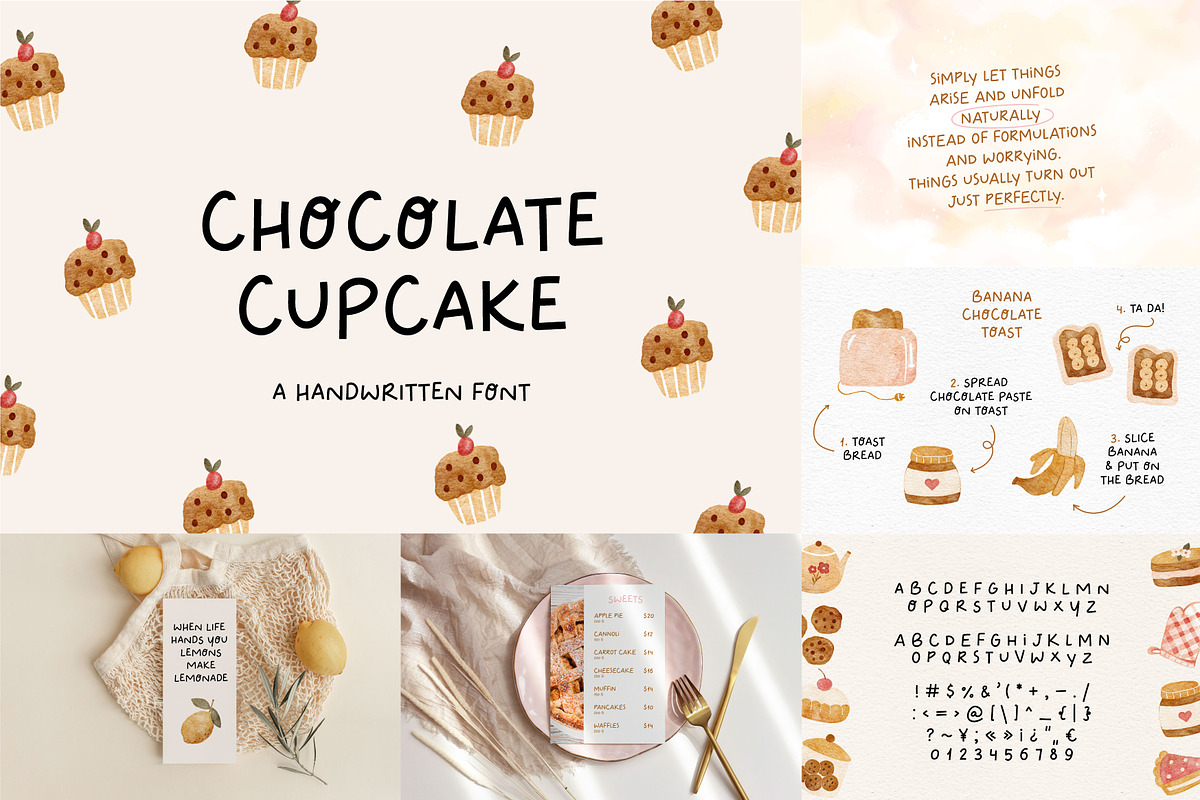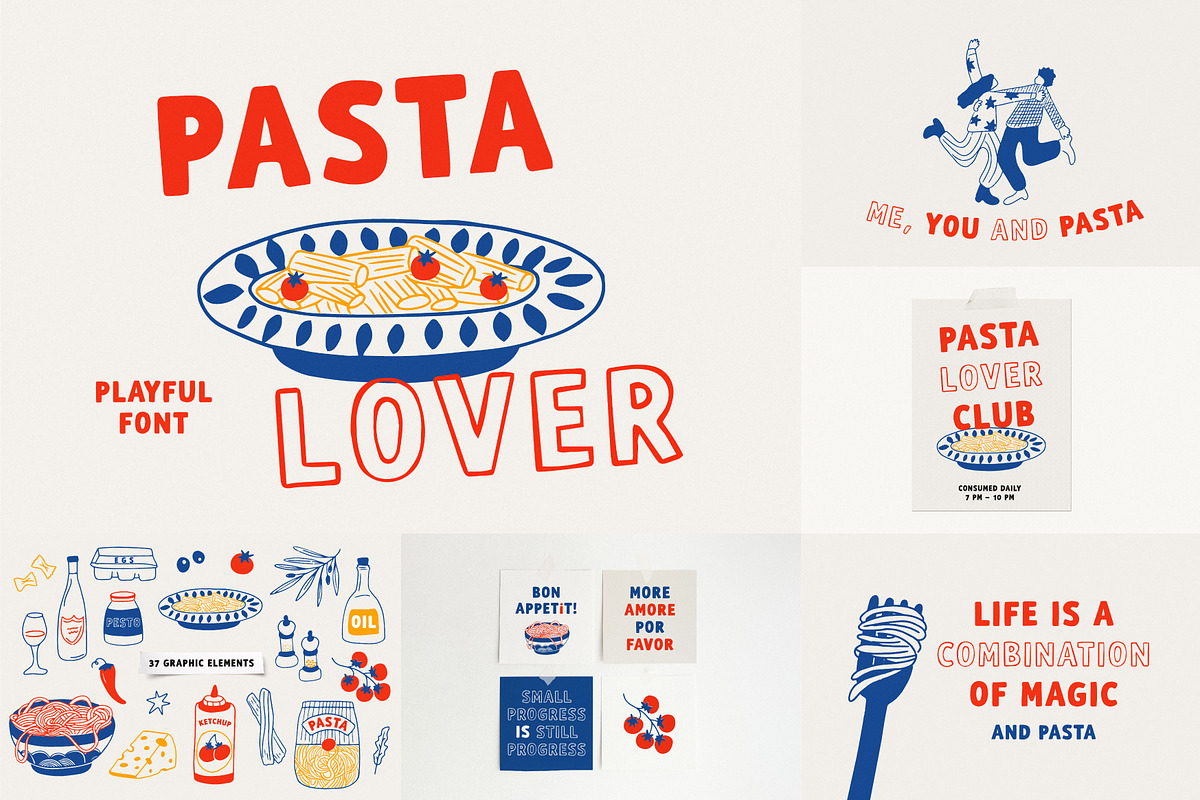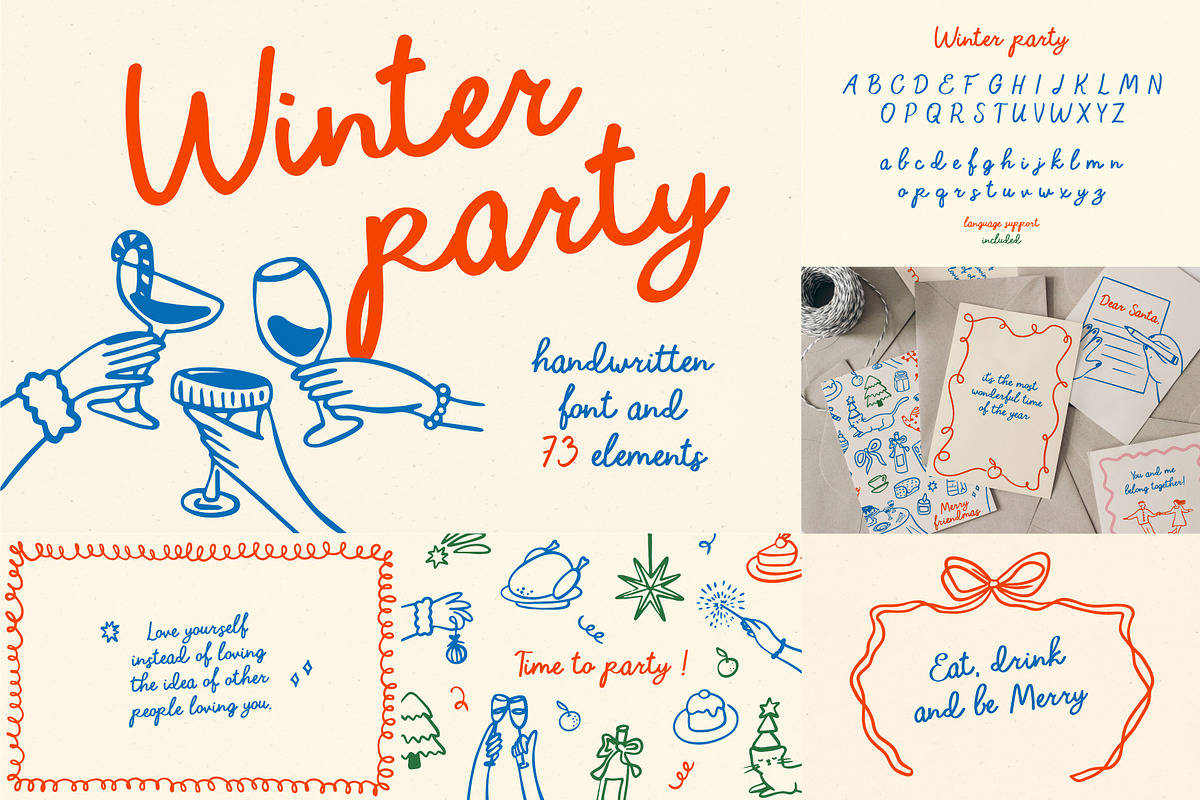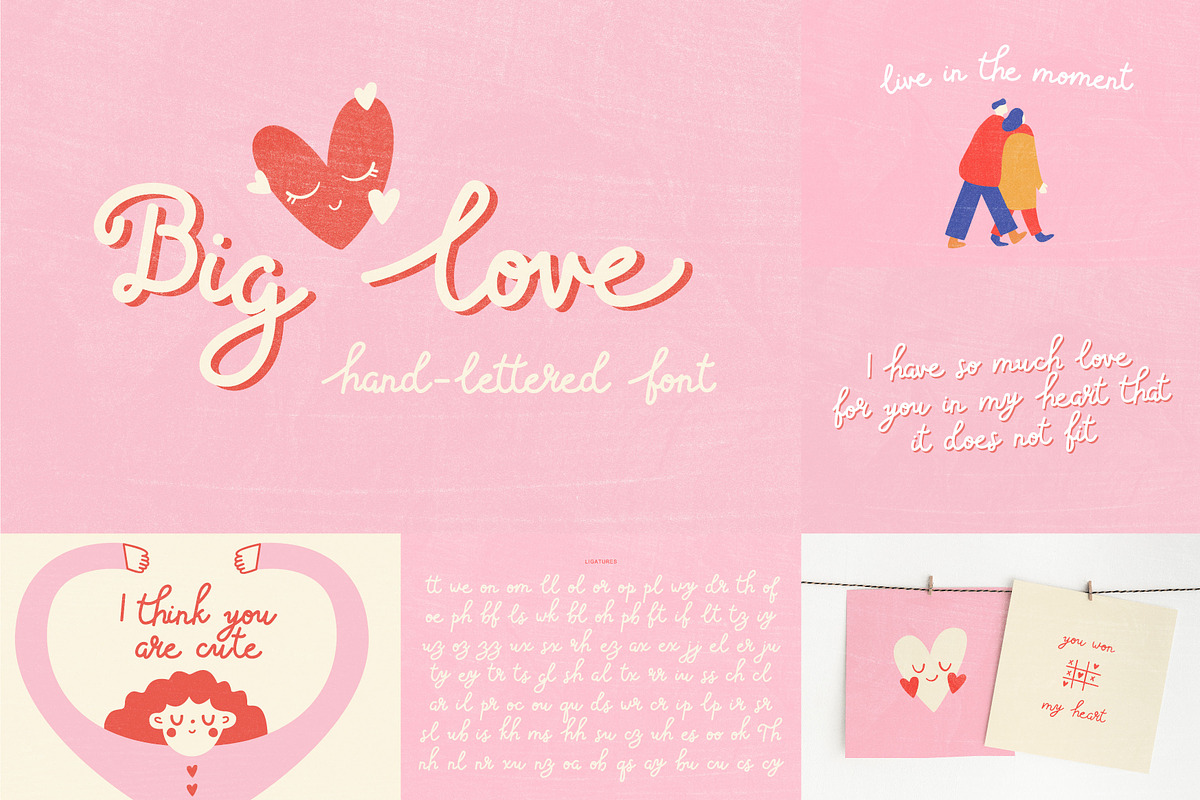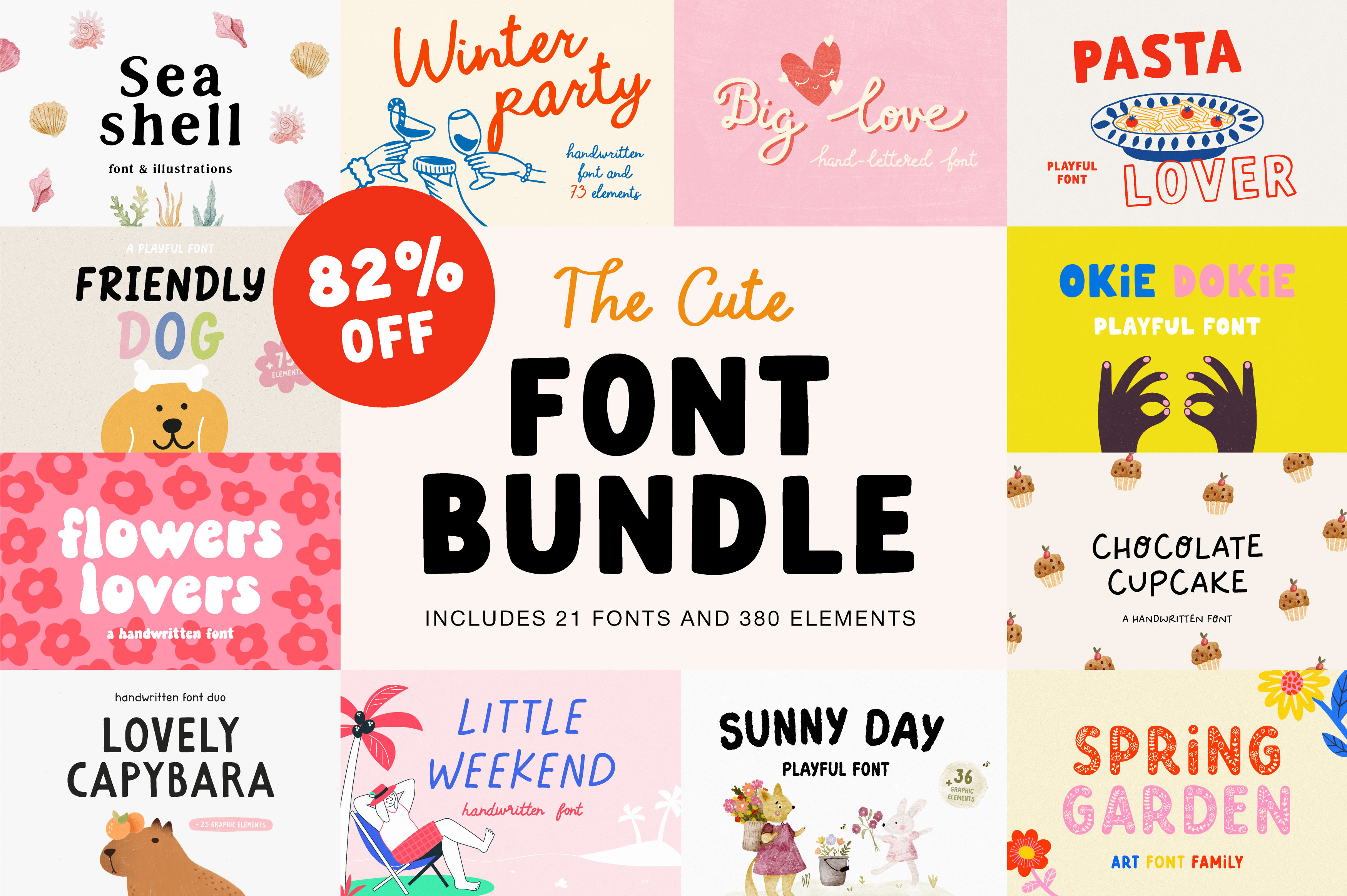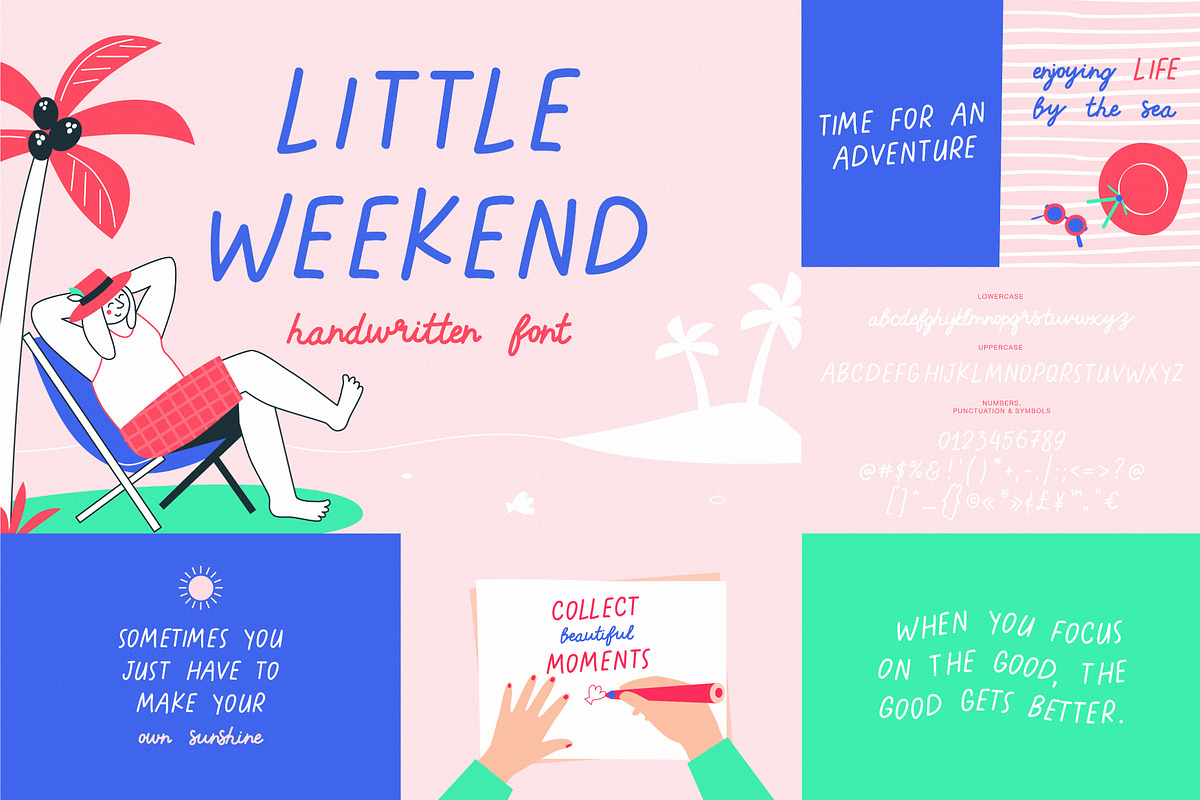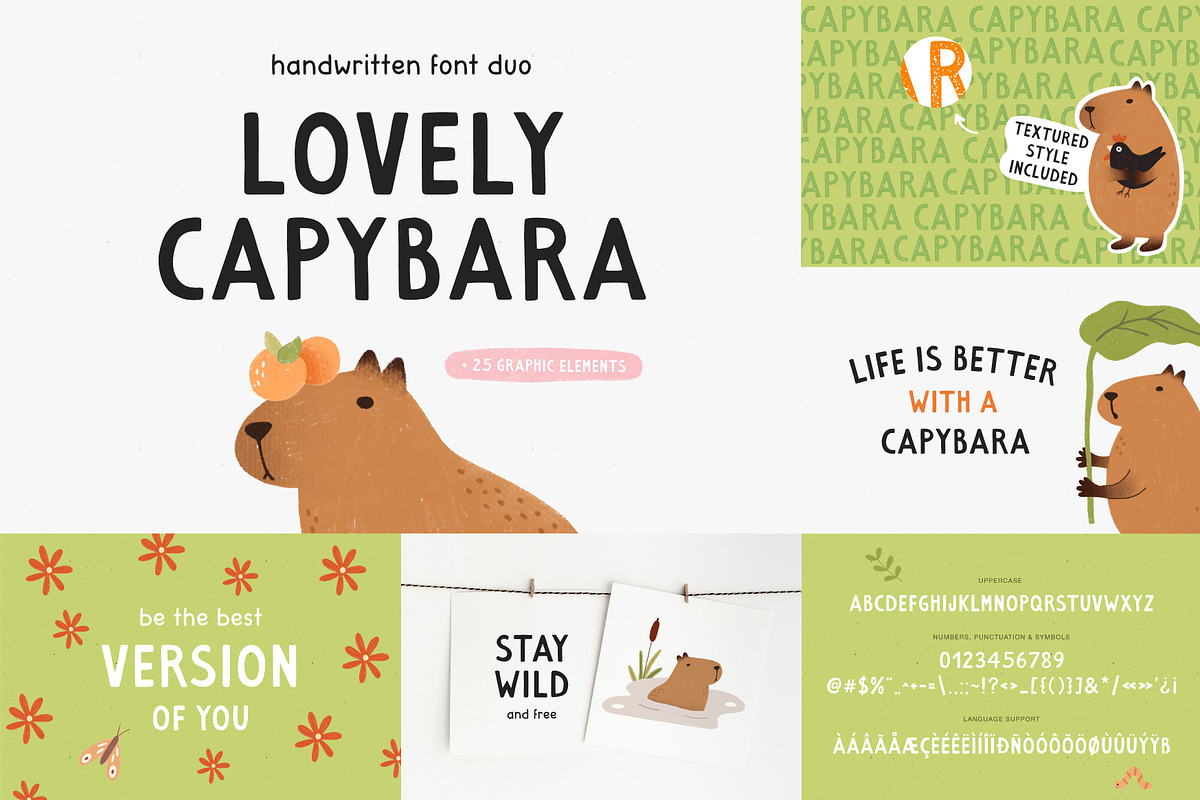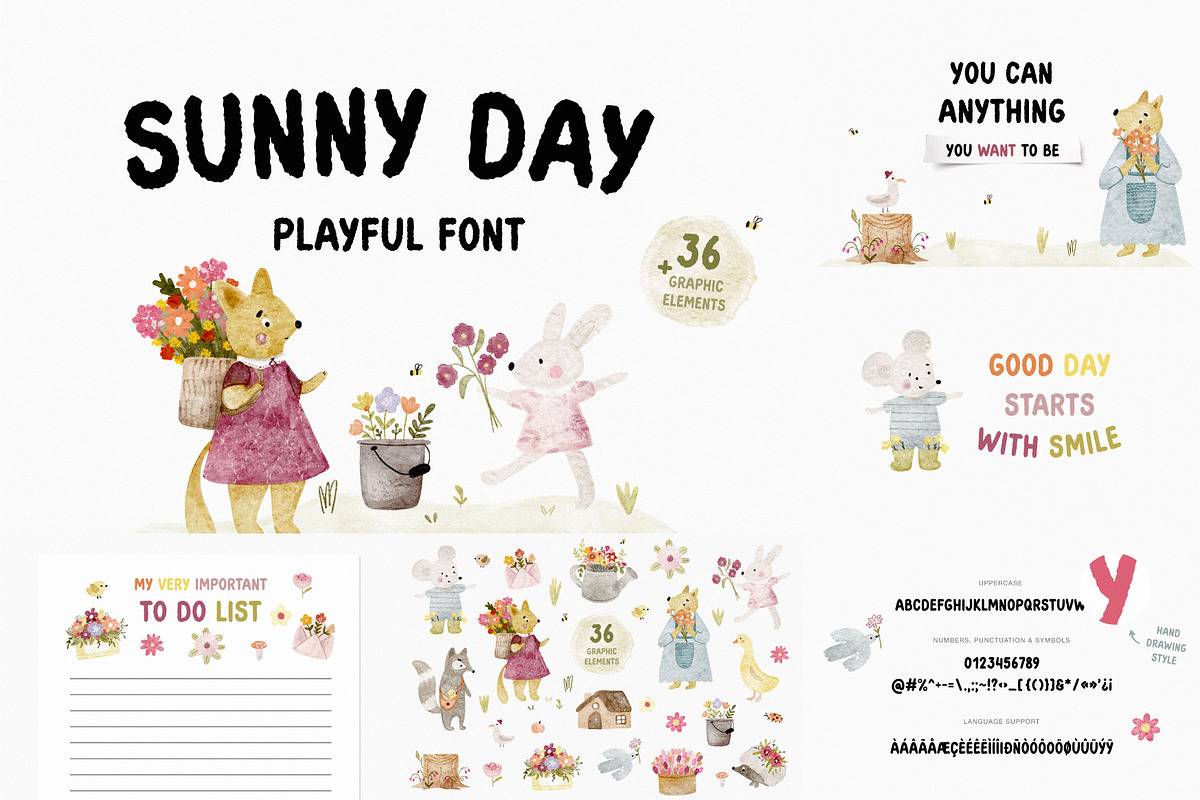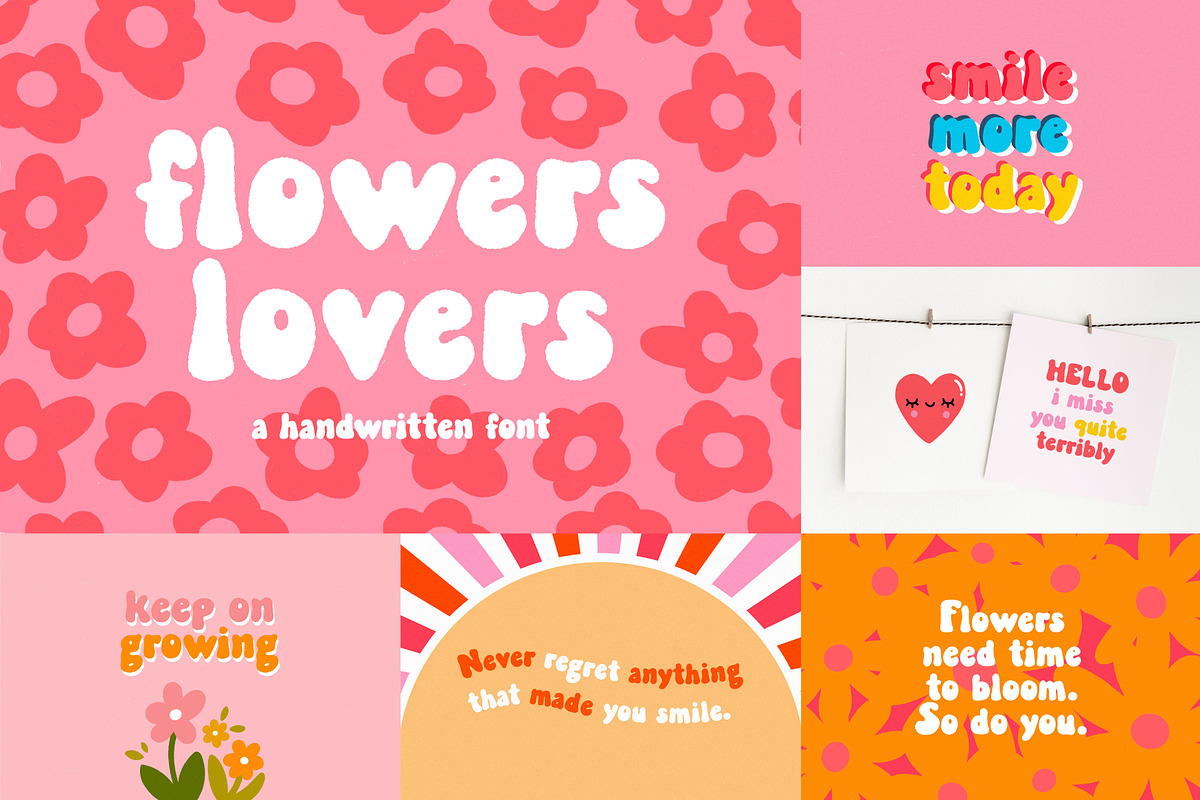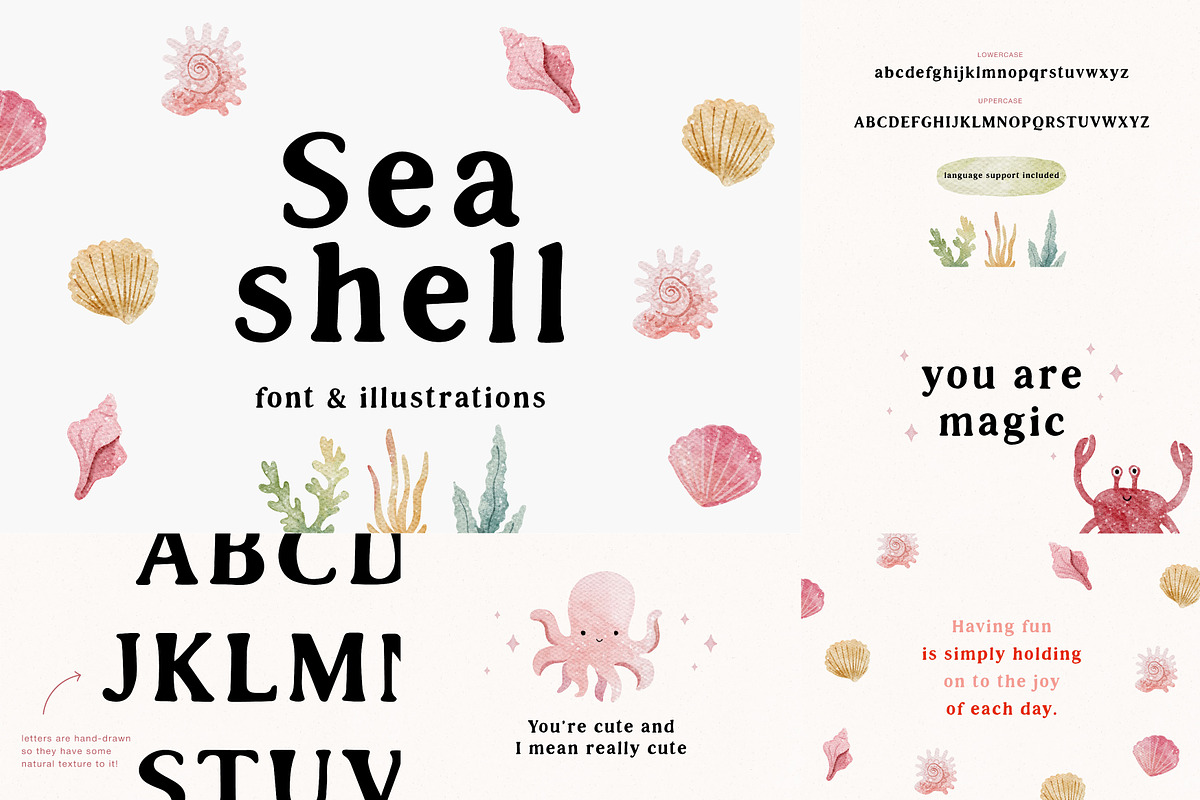
Cute Font BUNDLE | Part 2
Introducing 21 cute handwritten fonts. Also, you will get 380 a fun graphic design elements. Hand drawn style provides an imperfect look, great to add a handmade touch to your projects.
Fonts Included:
- Winter party | Handwritten font https://creativemarket.com/Julia_Volkova/288971811-Winter-party-Handwritten-font
- Sea shell | font & illustrations https://creativemarket.com/Julia_Volkova/42161112-Sea-shell-font-illustrations
- Okie Dokie | Playful font https://creativemarket.com/Julia_Volkova/291241152-Okie-Dokie-Playful-font
- Little weekend | Handwritten font https://creativemarket.com/Julia_Volkova/291190188-Little-weekend-Handwritten-font
- Pasta lover | Playful font https://creativemarket.com/Julia_Volkova/289574264-Pasta-lover-Playful-font
- Big love | Hand-lettered font https://creativemarket.com/Julia_Volkova/290829849-Big-love-Hand-lettered-font
- Friendly dog | Playful font https://creativemarket.com/Julia_Volkova/91974199-Friendly-dog-Playful-font
- Flowers lovers | Handwritten font https://creativemarket.com/Julia_Volkova/12727936-Flowers-lovers-Handwritten-font
- Chocolate cupcake | Handwritten font https://creativemarket.com/Julia_Volkova/13448991-Chocolate-cupcake-Handwritten-font
- Lovely Capybara | Handwritten font https://creativemarket.com/Julia_Volkova/92090259-Lovely-Capybara-Handwritten-font
- Sunny day | Playful font https://creativemarket.com/Julia_Volkova/92460891-Sunny-day-Playful-font
- Spring Garden | Font family https://creativemarket.com/Julia_Volkova/12768402-Spring-Garden-Font-family